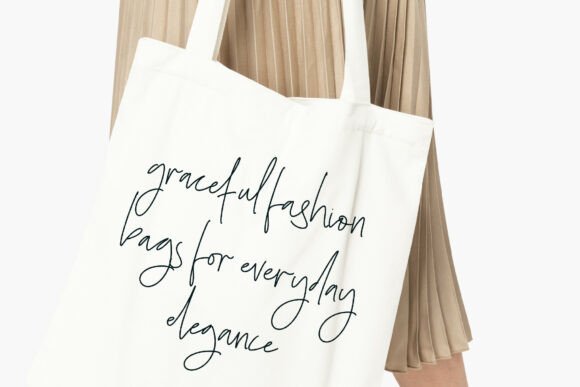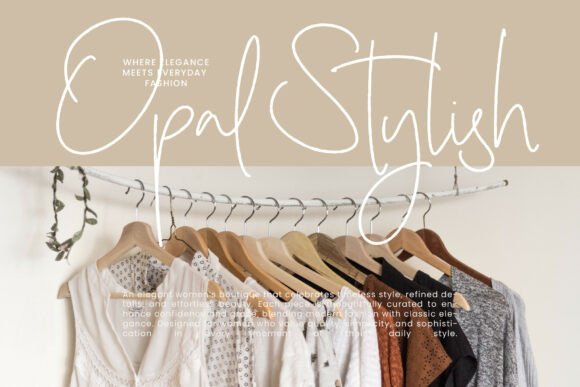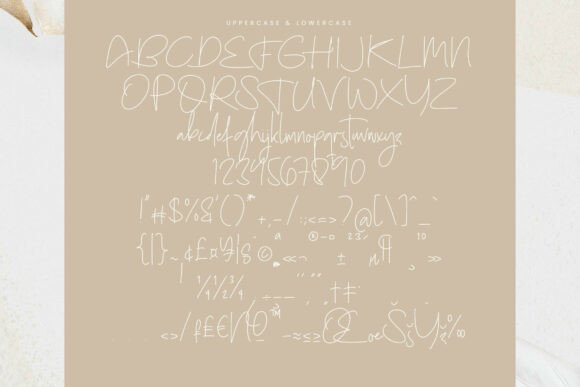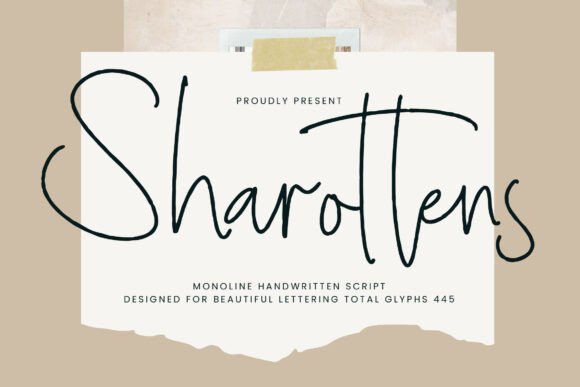
Introduction to Sharottens Font
Sharottens font is a masterclass in modern monoline elegance, offering a sophisticated and β€œinky” look that feels both professional and intimate.
This Sharottens typeface features a consistent stroke weight and beautiful, sweeping transitions that suggest a refined signature With a massive library of 445 glyphs, the Sharottens font provides endless ligature and alternate options to make every word look like a custom piece of beautiful lettering.
Key Features of Sharottens Font